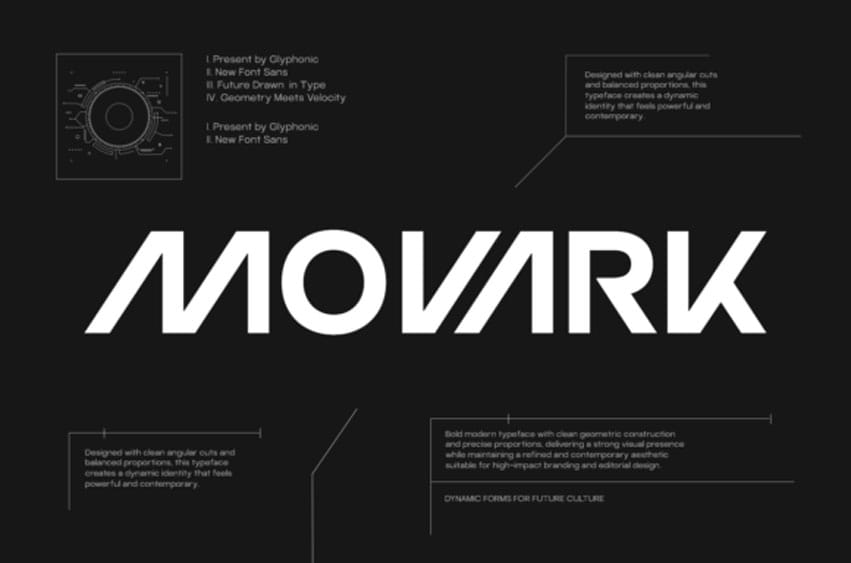
Movark Font is a contemporary sans serif typeface designed with bold geometry, angular precision, and a strong futuristic character. Built to create memorable visual identities, Movark delivers a powerful typographic voice that balances modern innovation with structural clarity.
With its distinctive letterforms, sharp cuts, and dynamic construction—as seen in its custom-inspired shapes— Movark creates a unique logotype presence that feels progressive, technical, and highly recognizable. The clean geometric foundation enhances readability while maintaining a strong sense of individuality.
As a variable typeface, Movark offers flexible weight control, allowing designers to build impactful hierarchy and adaptable branding systems across multiple applications. From sleek technology branding to bold editorial headlines, the font maintains consistency while delivering a confident visual statement.